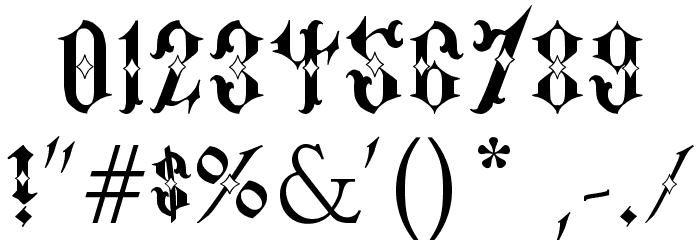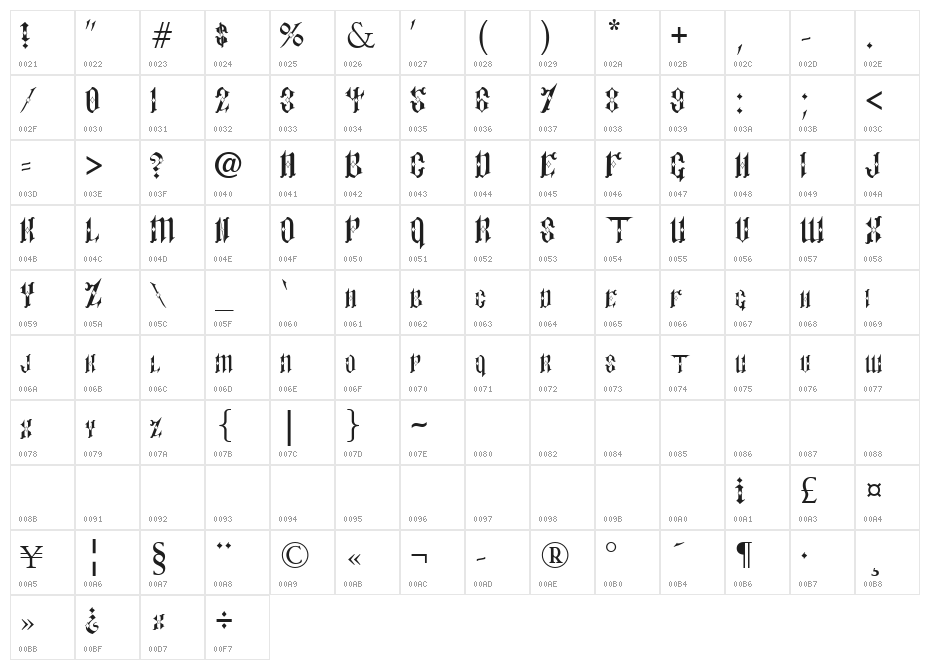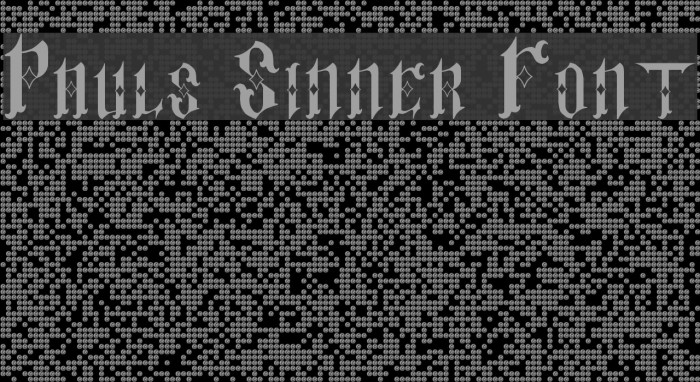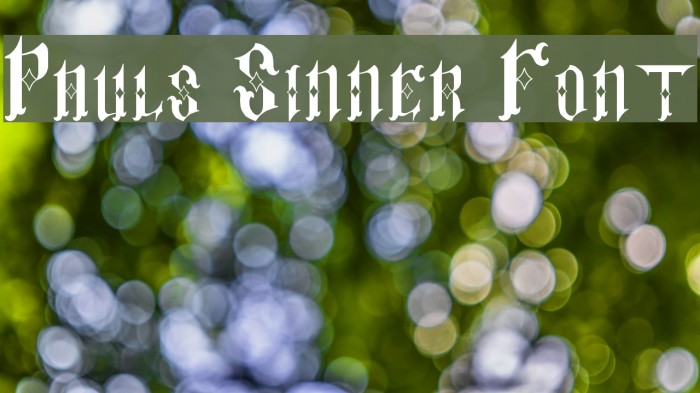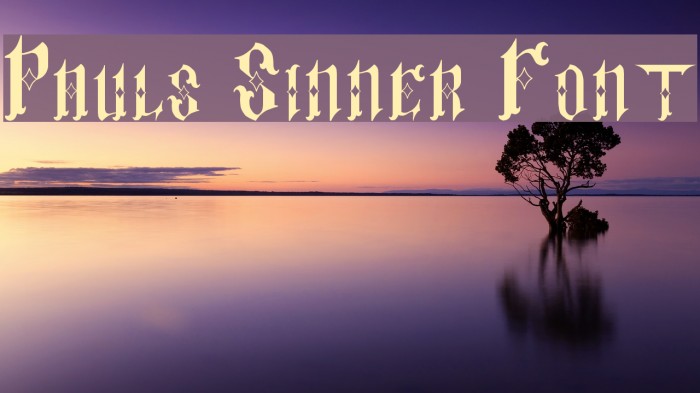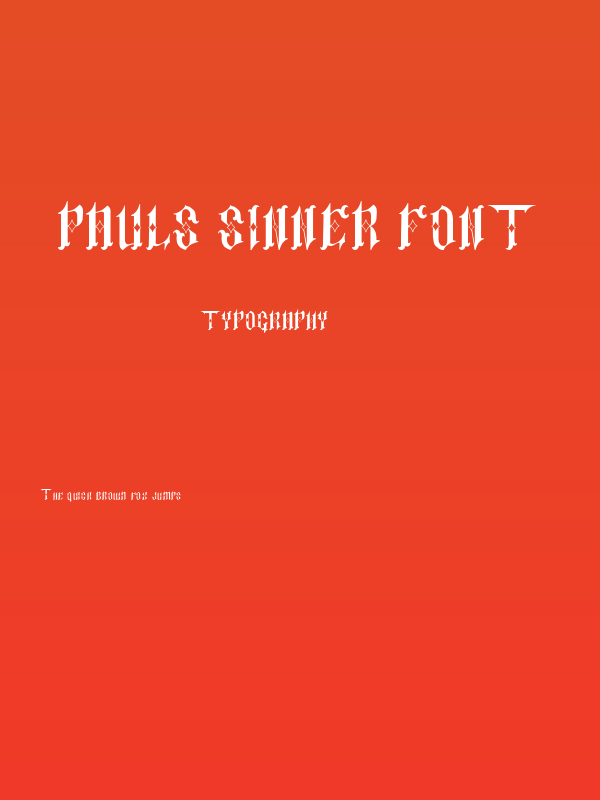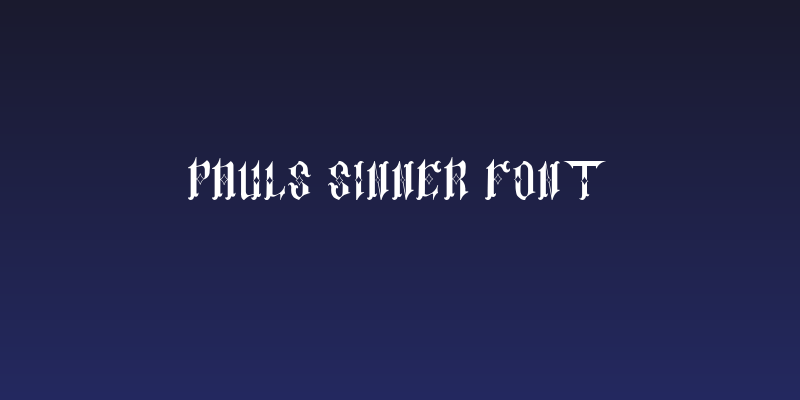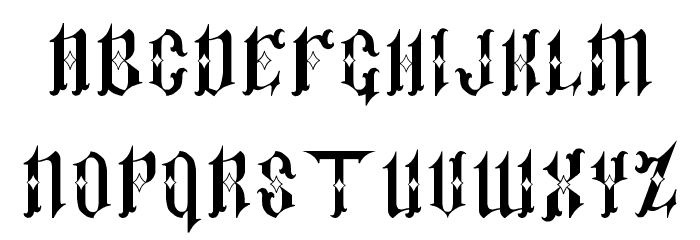
Pauls Sinner Font Font
Pauls Sinner Font Description
This font features a bold and dramatic style, reminiscent of traditional blackletter typography. The characters are sharply angular with ornate detailing, giving them a gothic and medieval appearance. The uppercase and lowercase letters maintain a consistent style, with intricate flourishes and pointed serifs that enhance the font's decorative nature. The numerals and special characters are designed to match the elaborate style of the letters, making this font suitable for projects that require a historical or fantasy theme. The overall aesthetic is striking and commands attention, making it ideal for use in headlines or branding that seeks to convey a sense of tradition and elegance.
| Overall Style | Gothic, Medieval, Decorative |
| Proposed Projects | Ideal for historical-themed designs, fantasy book covers, gothic event invitations, and branding for vintage or medieval-inspired products. |